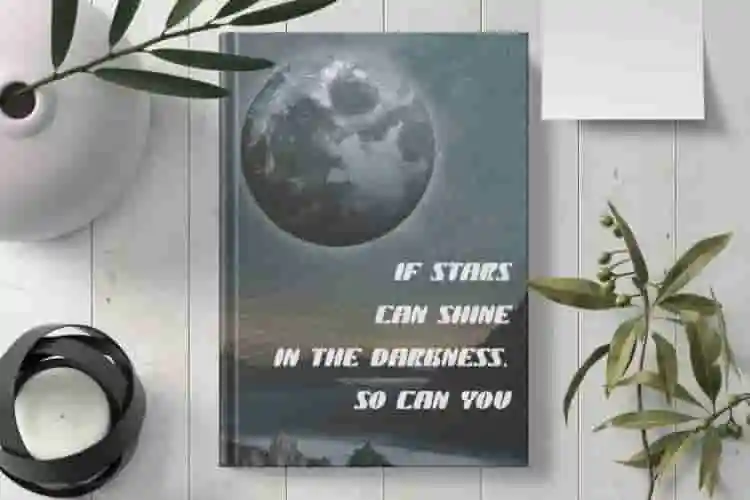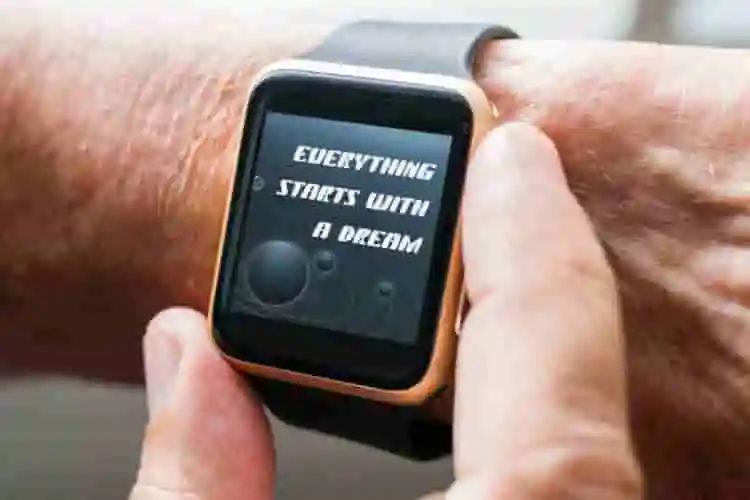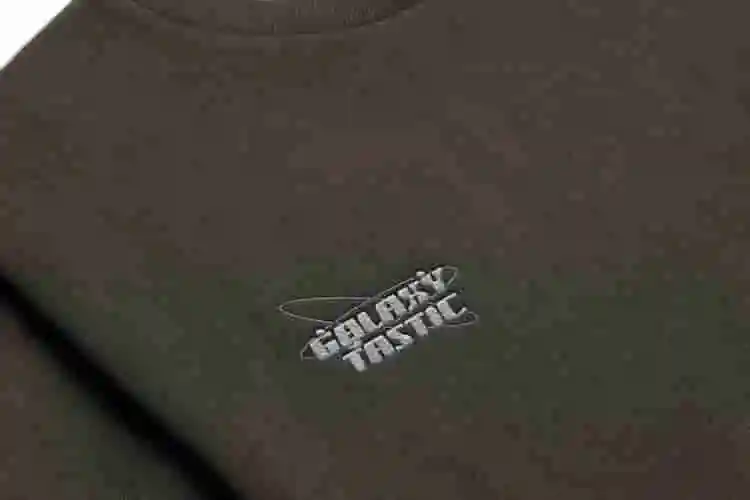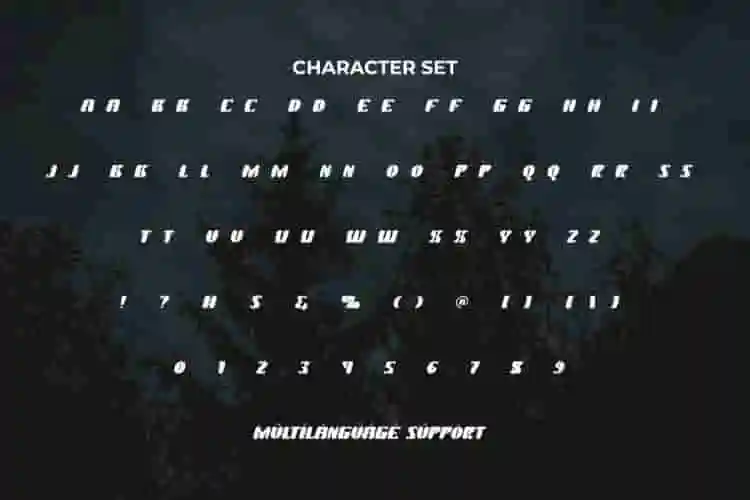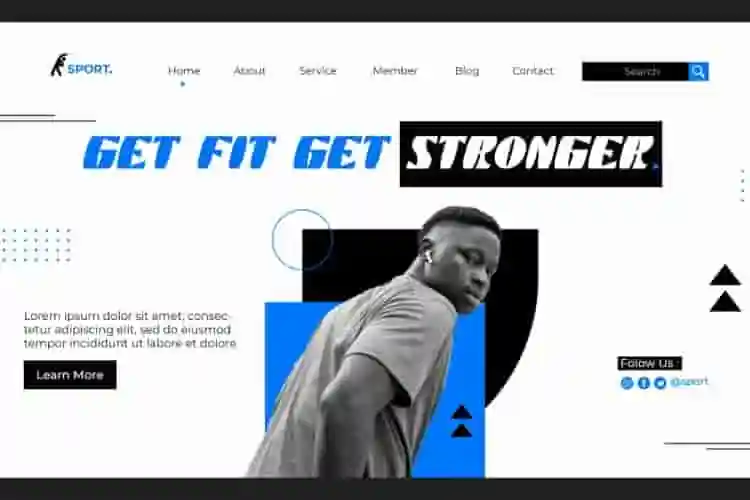
Galaxy Tastic Font is a strong modern font with a dynamic sporty look designed for a unique appearance. A versatile font that works in both large and small sizes. The visuals of the racing typeface are always kept from being boring, look at the slanted letters with smooth curves and clear sharp corners created in each letter. This font is suitable for a wide variety of projects such as brochure, cards, editorials, headers, invitations, labels, logos, magazine, mugs, posters, product mockup, product packaging, quotes, screen print, title, websites, and much more.
Introducing Galaxy Tastic Display Font – a bold, futuristic, and adventurous typeface that brings the spirit of outer space directly into your designs. With its sharp edges, dynamic lines, and modern sci-fi aesthetic, Galaxy Tastic is the perfect font for projects that demand excitement, innovation, and a touch of the extraordinary.
Whether you’re working on a video game title, movie poster, tech branding, esports logo, or digital content, this display font guarantees maximum impact. Its strong and futuristic letterforms are designed to stand out, making your message loud and clear in both print and digital media. Galaxy Tastic is more than just a font—it’s a gateway to creativity, inspiring designs that capture the energy of exploration and discovery.
Galaxy Tastic Display Font comes with a full set of ALL CAPS for Uppercase and Lowercase letters, Number, Punctuation, and Symbol. This display font type is made to be striking and unique. The contrasting shape between vertical and horizontal lines makes it look solid as the main text. Excellent for automotive, games, graphic design, gyms, handmade bags, photography, sportswear brands, writers, and the like.